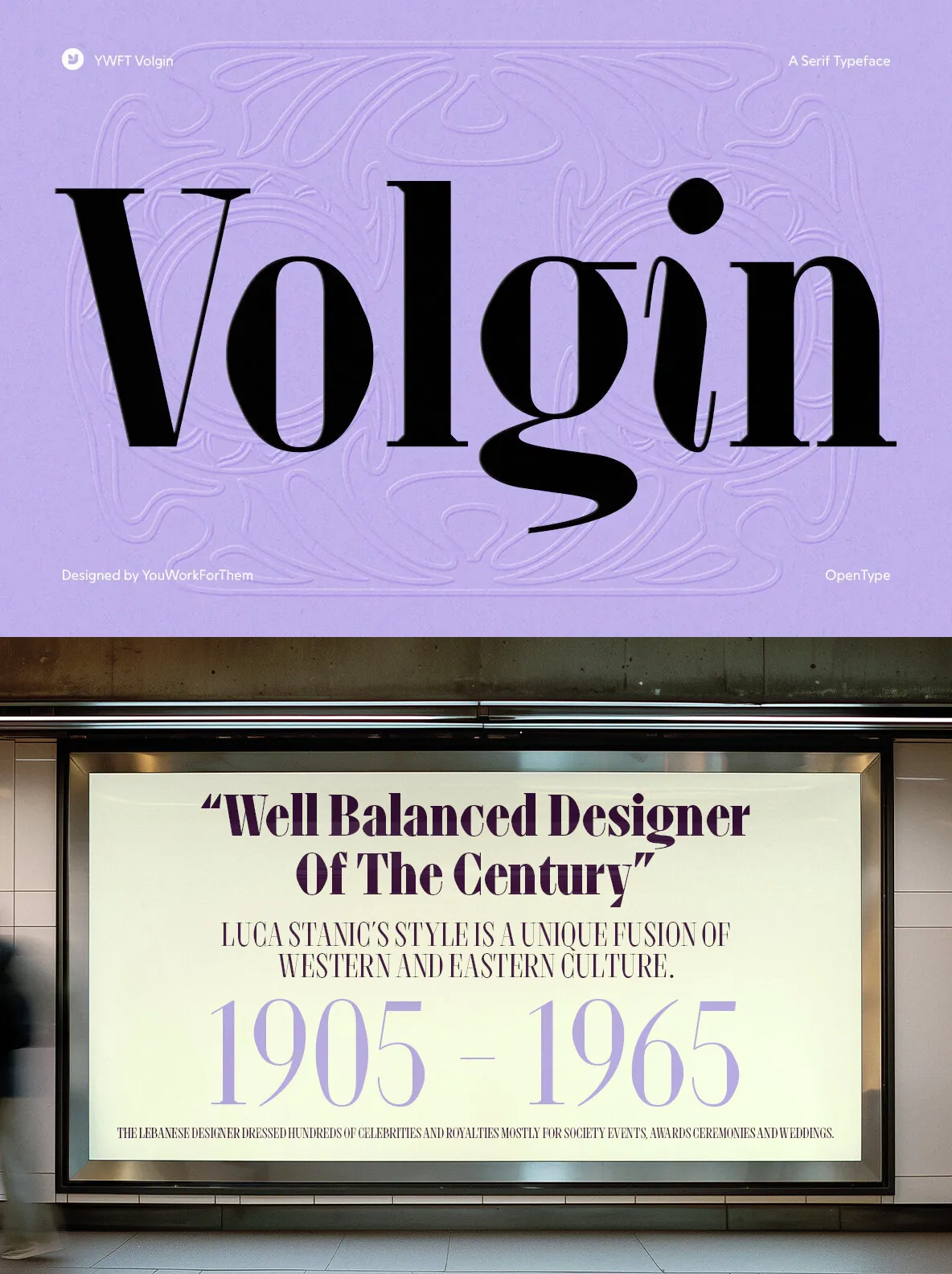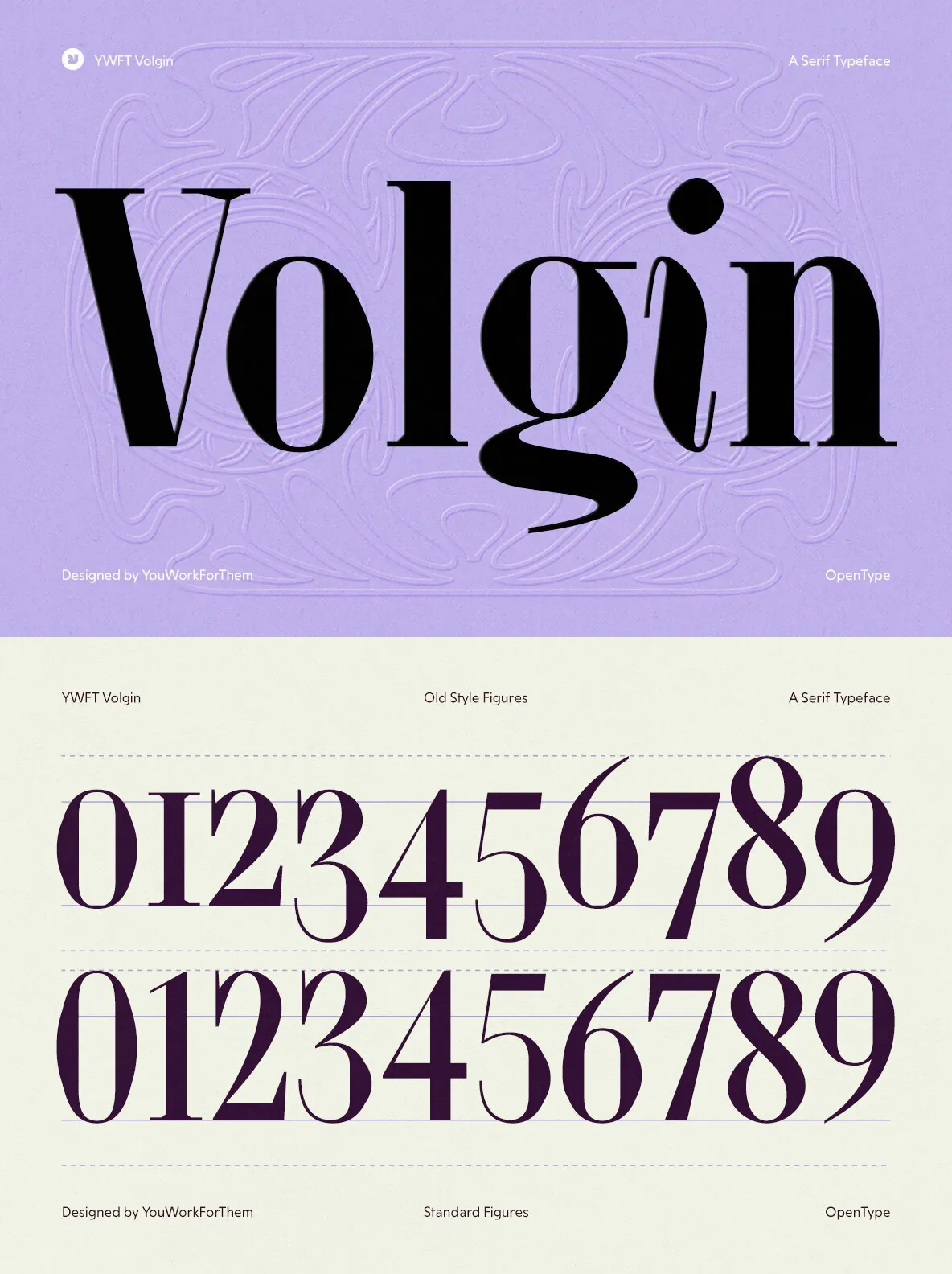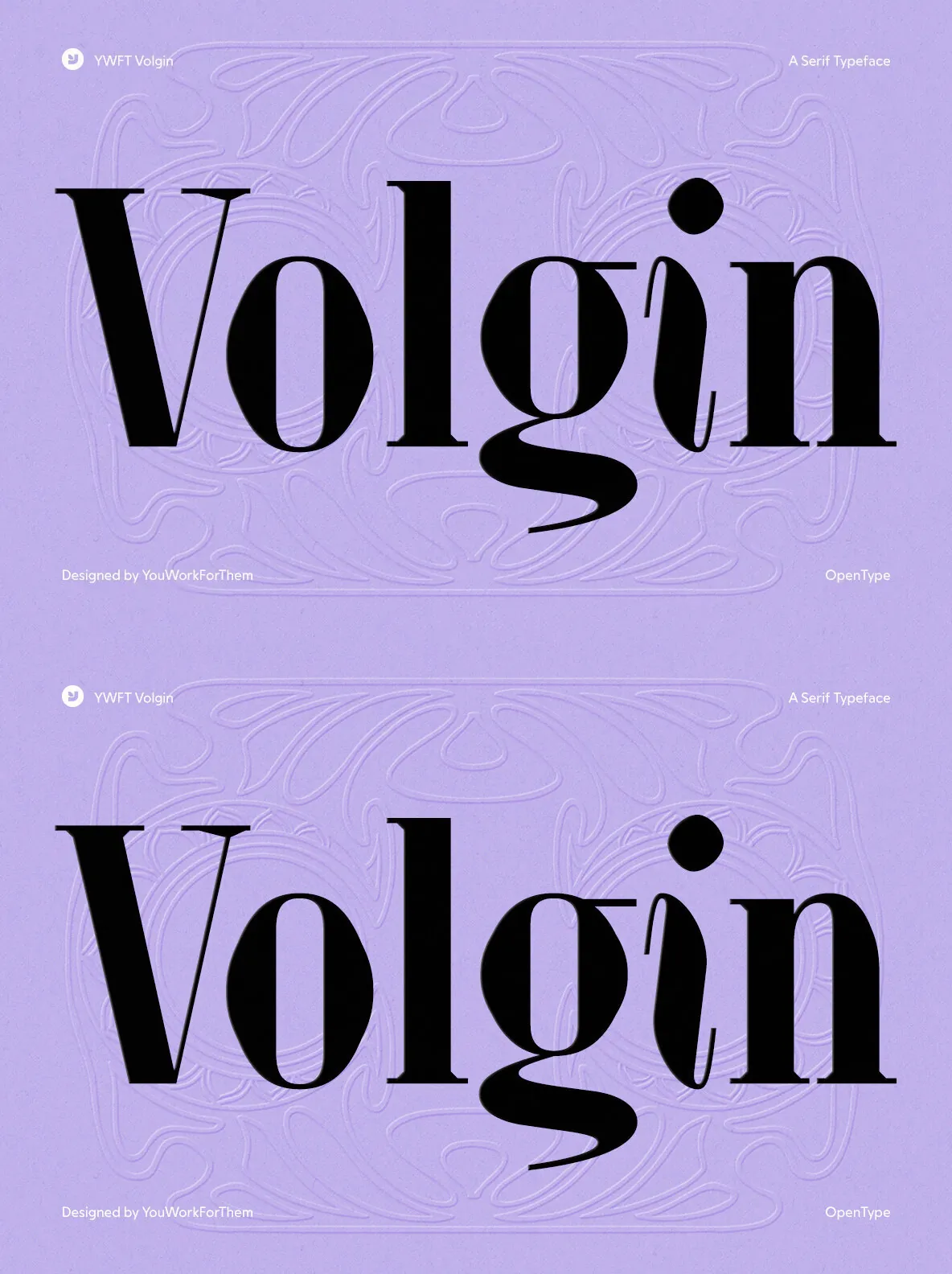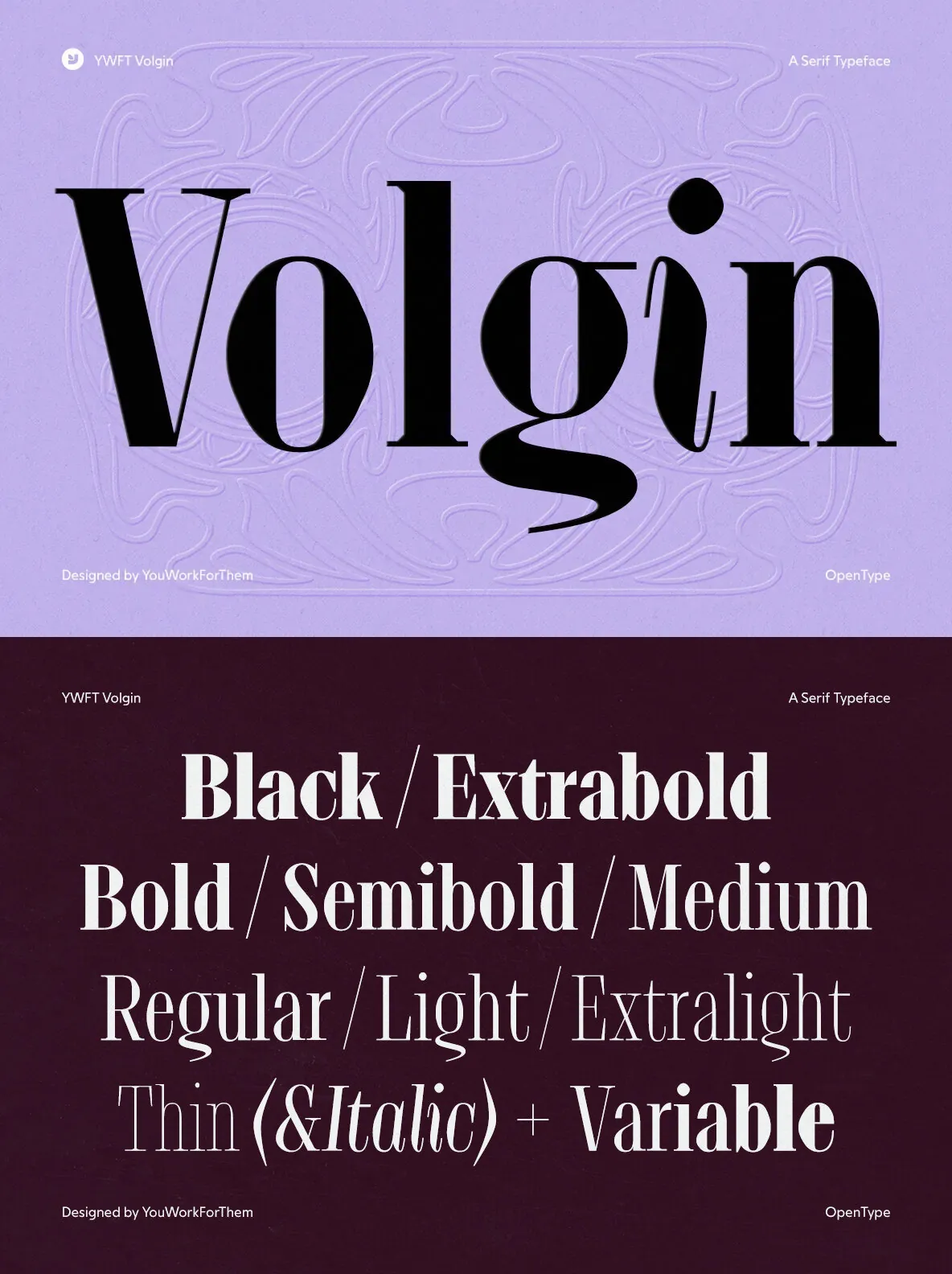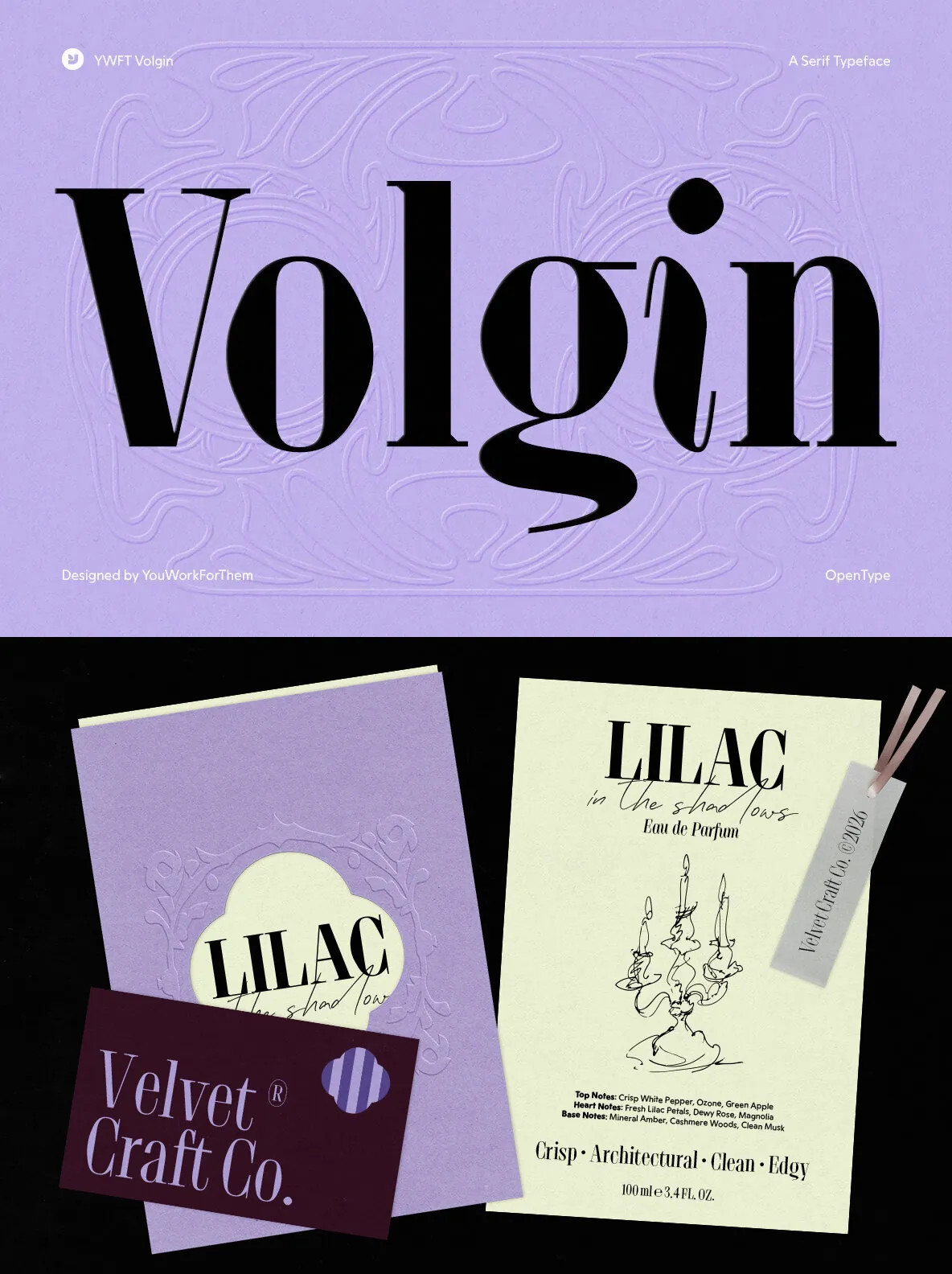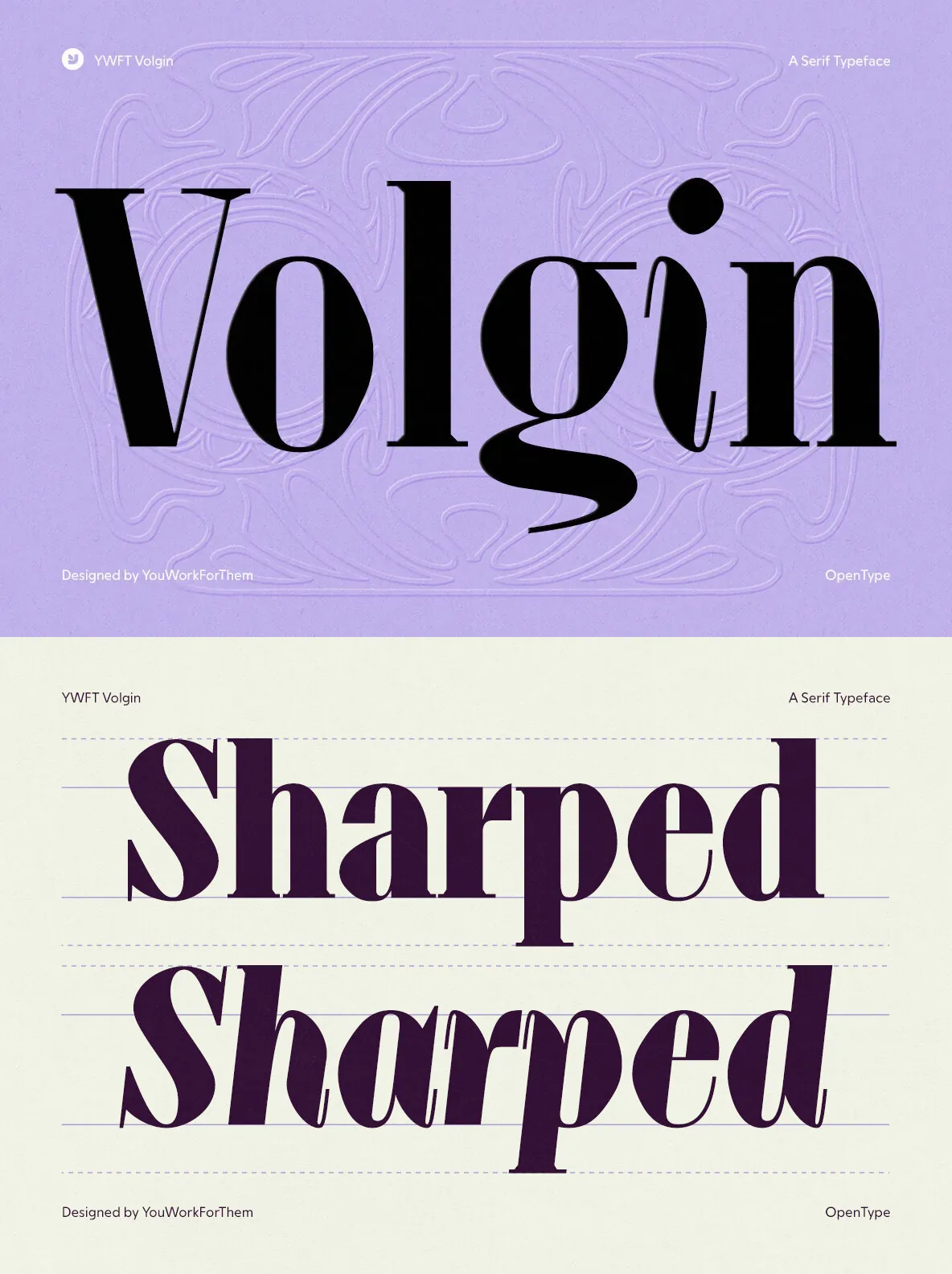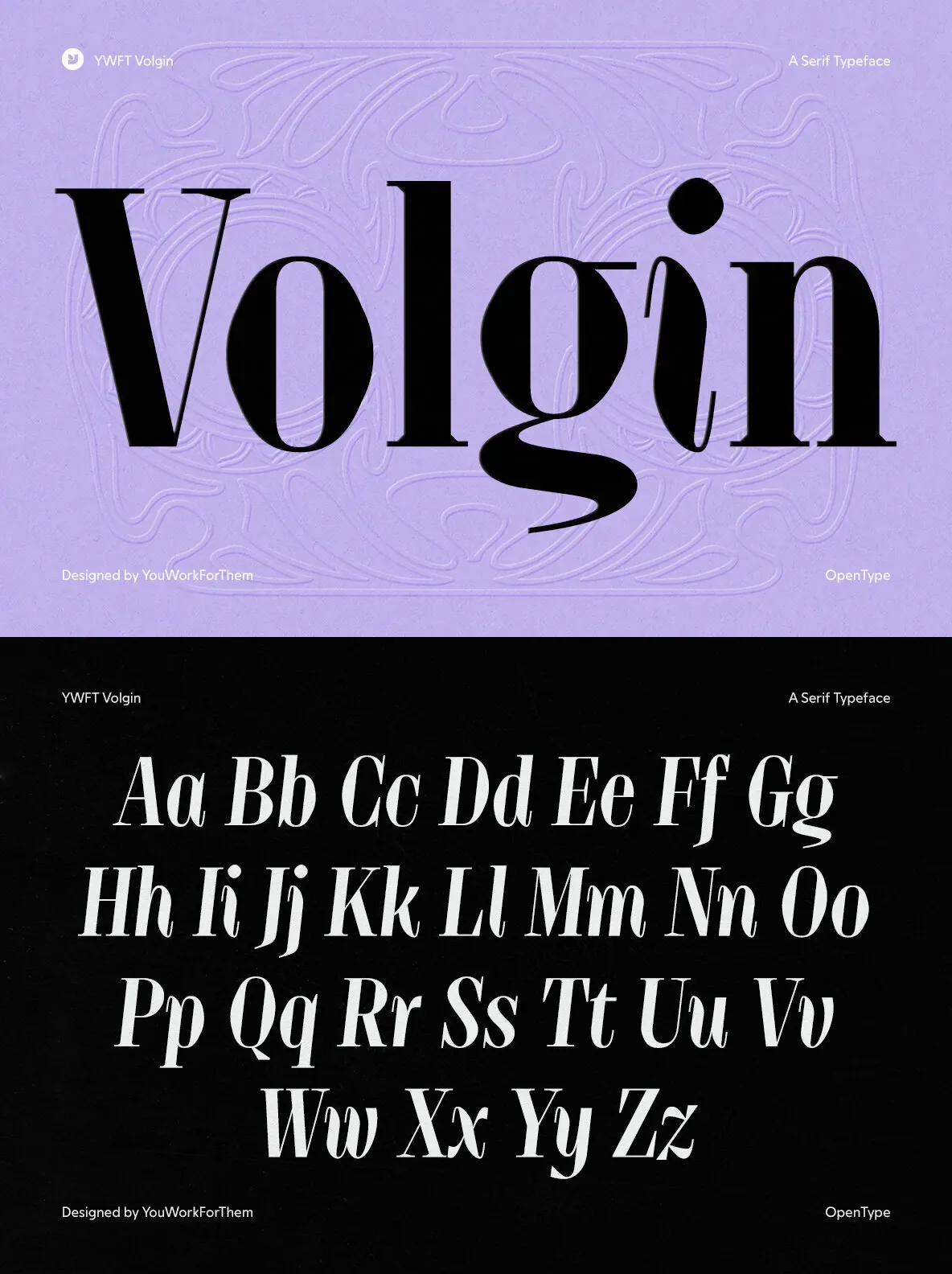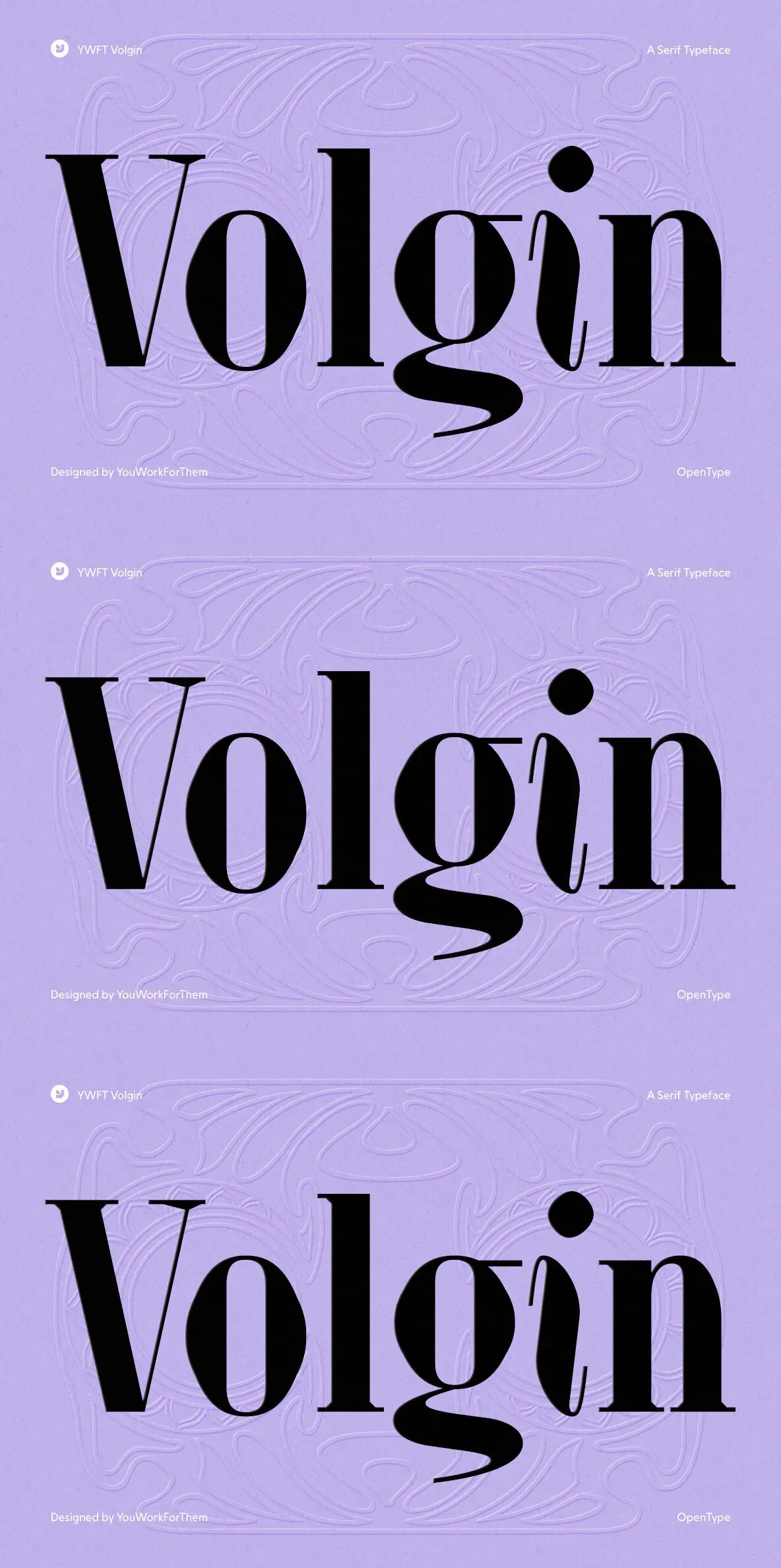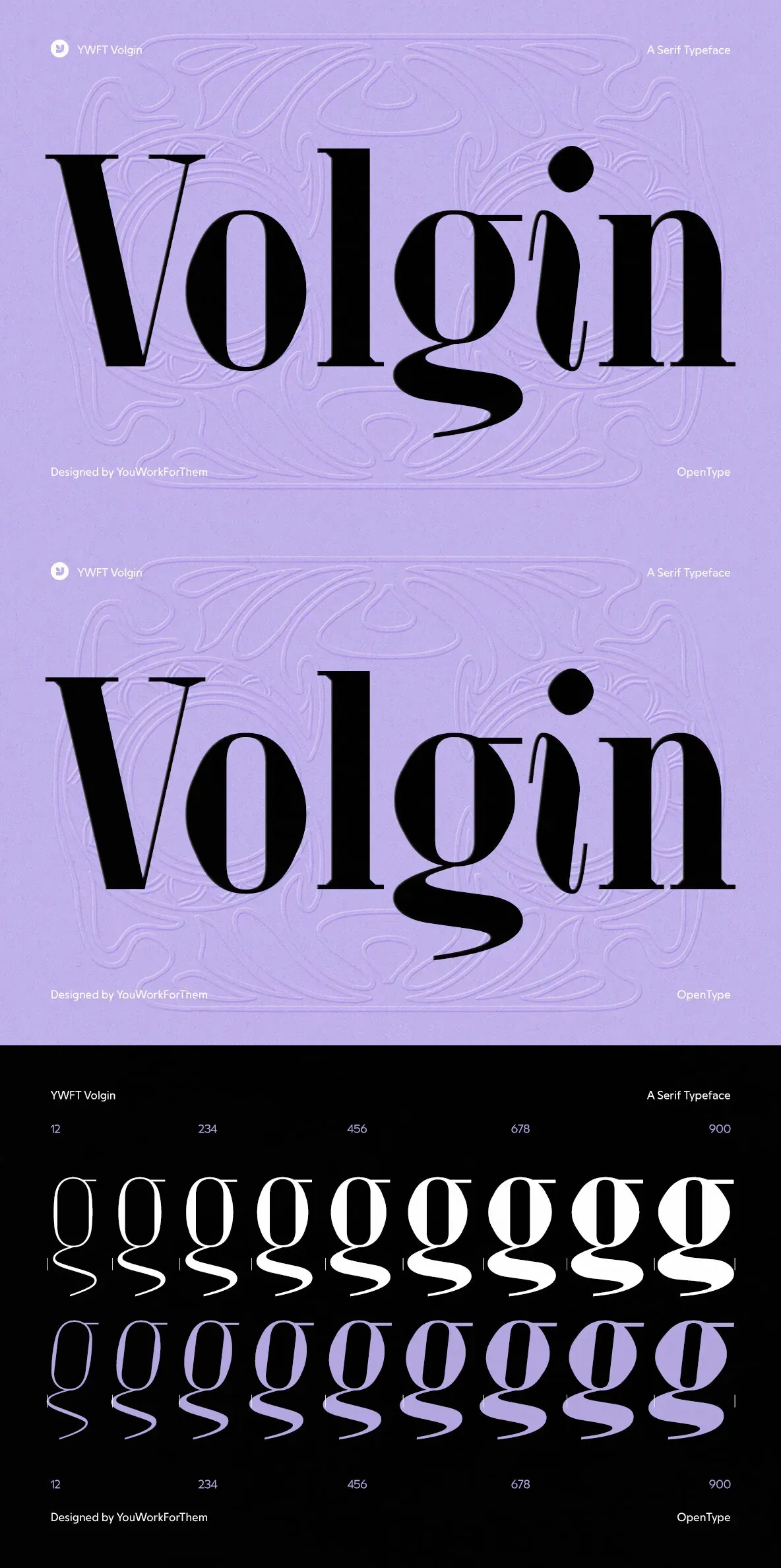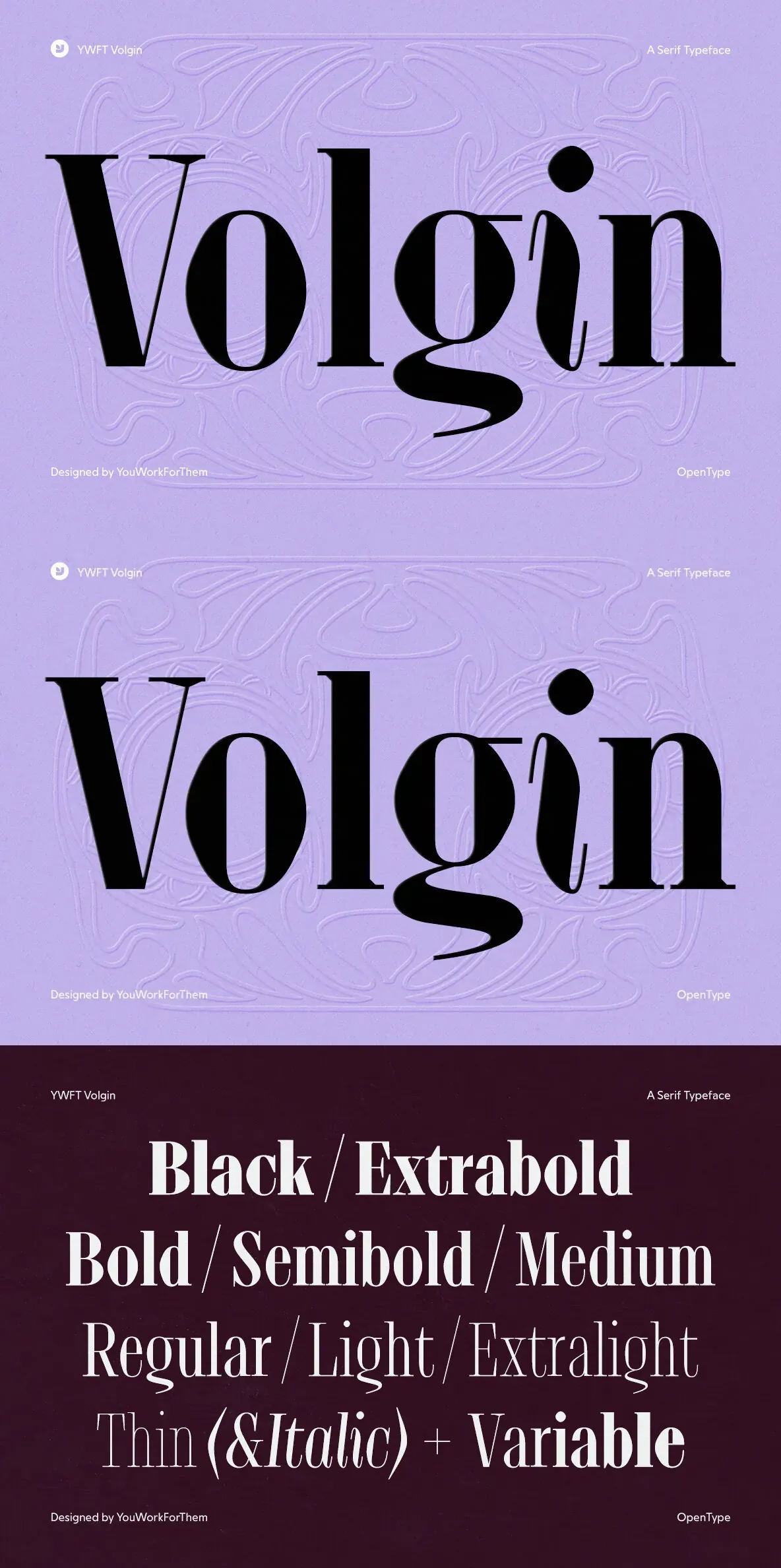
YWFT Volgin — Didone With Tension
YWFT Volgin is a high-contrast Didone serif built on the tension between thick stems and razor-thin hairlines. Its vertical stress is deliberate, its proportions are tall and narrow, and its terminals are precise, with teardrop forms on the g and j and sharp bracketed serifs throughout. It reads as refined without trying too hard.
The family spans 9 weights with matching italics, including two variable styles, giving you real flexibility across a project. Light weights carry editorial grace, while heavier cuts land with authority. The italic feels expressive without breaking from the system’s discipline, making Volgin a reliable workhorse for headline hierarchies, not just a one-size display face.
YWFT Volgin includes 602 glyphs with extensive language coverage across Latin, Greek, Baltic, Central European, Vietnamese, and Pan African scripts.
Its deep OpenType feature set includes oldstyle figures, discretionary ligatures, historical forms, scientific inferiors, fractions, and more, making it a practical choice beyond pure display use.
Use Volgin for magazine mastheads, luxury product packaging, editorial title treatments, fashion campaign type, and anywhere a serif needs to carry presence without weight.